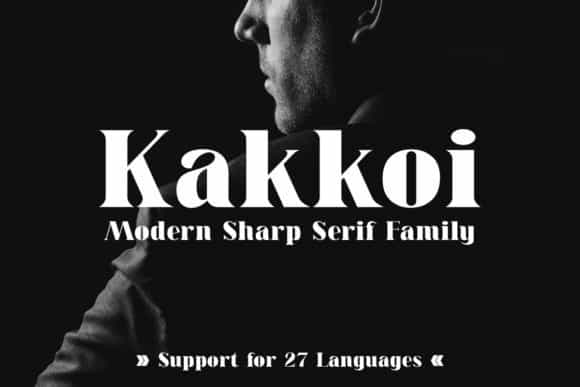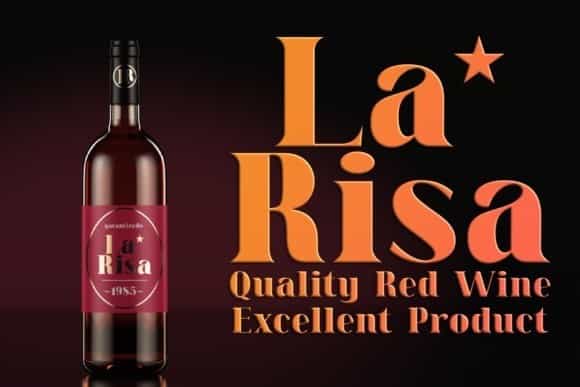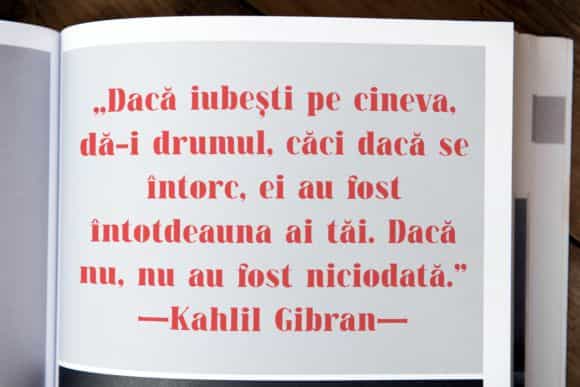
Kakkoi stands out as an modern serif font meticulously designed to be every ones pick. Whether used on backgrounds or as eye catching headlines, on its context; this font never fails to make an impact! Kakkoi Font brings the charm of serif typography to those seeking whimsical designs.